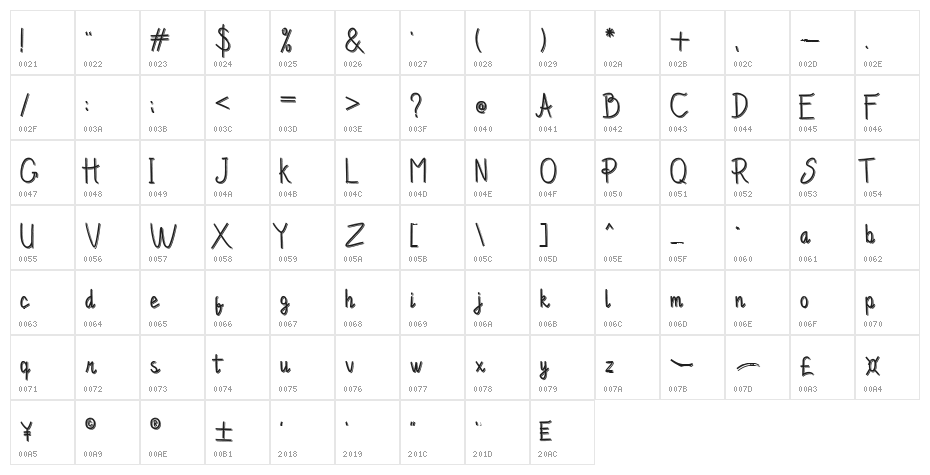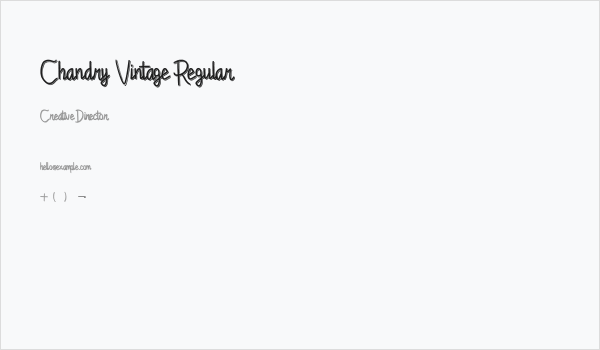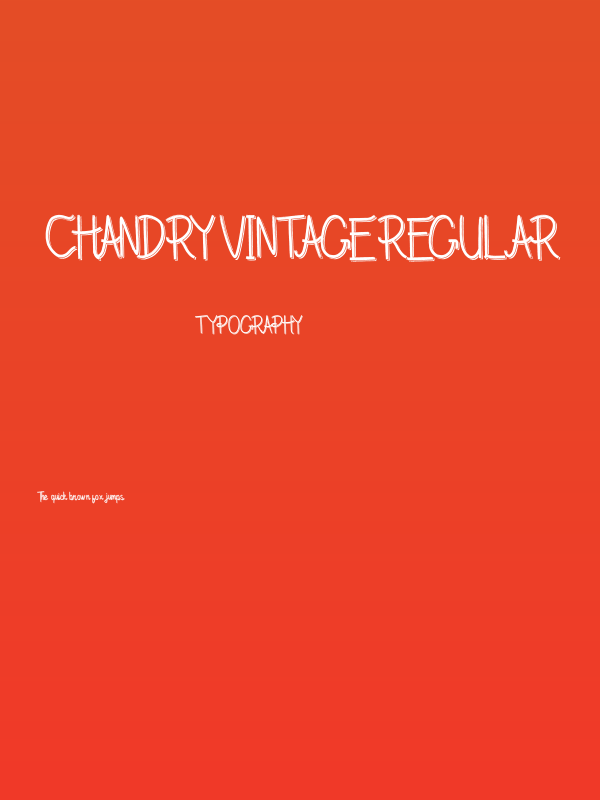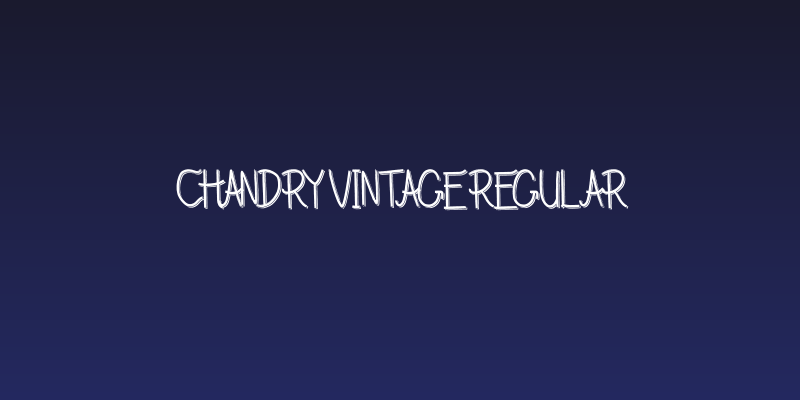
Chandry Vintage Regular Font
Chandry Vintage Regular Description
This font features a playful and vintage aesthetic with a hand-drawn appearance. The characters are slightly irregular, adding to its charm and uniqueness. The uppercase letters are bold and prominent, while the lowercase letters maintain a consistent style with a touch of whimsy. The numbers and special characters follow the same playful design, making this font suitable for creative projects. The strokes are uneven, giving it a textured look that enhances its vintage feel. Overall, this font exudes a casual and artistic vibe, perfect for projects that require a personal touch.
Overall StyleVintage
Use CaseLogos, Posters, Creative projects
Proposed ProjectsIdeal for greeting cards, posters, branding, and any project needing a vintage or artistic touch.